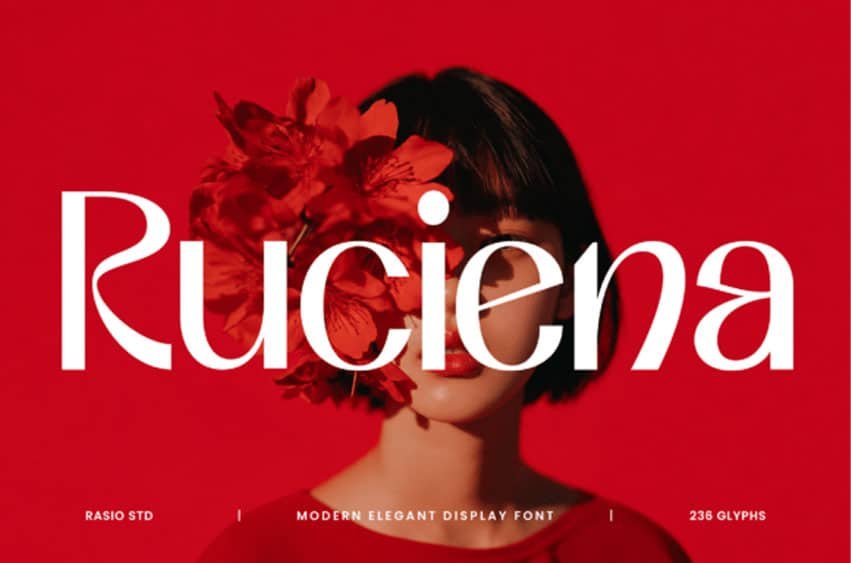
Ruciena Font Infuse a layer of high-contrast sophistication, artistic mystery, and runway-ready elegance into your design layouts with Ruciena, a modern elegant display font.
Ruciena is an exceptional choice for designers aiming for a premium, upscale look, serving as a premier creative asset for editorial magazine headers, luxury cosmetic branding, upscale boutique logos, fashion posters, and modern book cover designs.